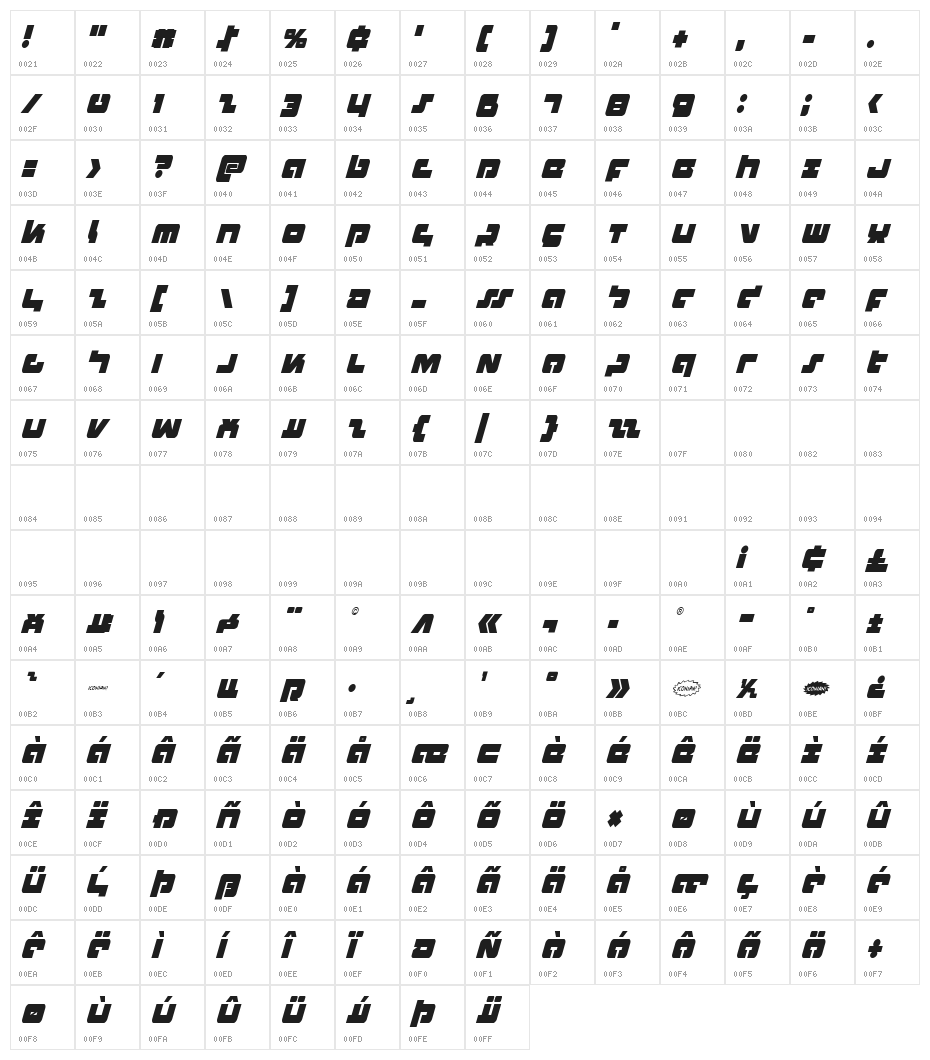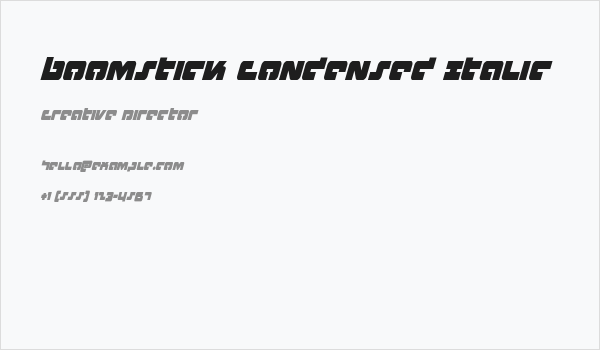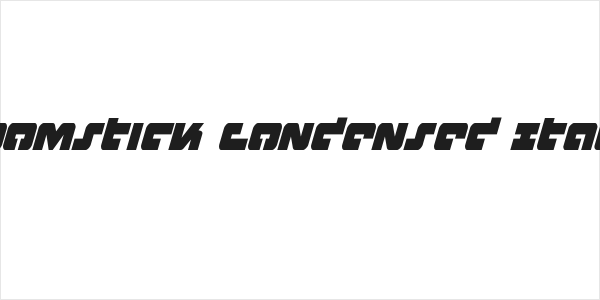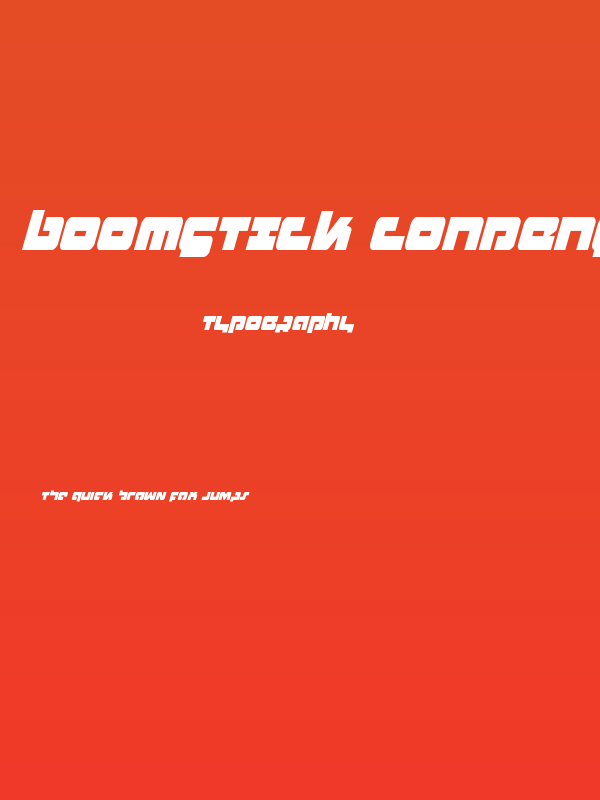
Boomstick Condensed Italic Font
Boomstick Condensed Italic Description
This font features a bold, condensed style with a distinct italic slant, giving it a dynamic and energetic appearance. The characters are designed with sharp angles and a geometric structure, creating a modern and futuristic feel. The uppercase and lowercase letters maintain a consistent style, with the lowercase letters mirroring the angular design of the uppercase. The numbers are equally bold and angular, ensuring readability and consistency across all characters. Special characters are included, maintaining the same bold and angular aesthetic, making this font versatile for various design needs.
| Proposed Projects | Ideal for sports branding, dynamic posters, video game titles, and futuristic designs. |